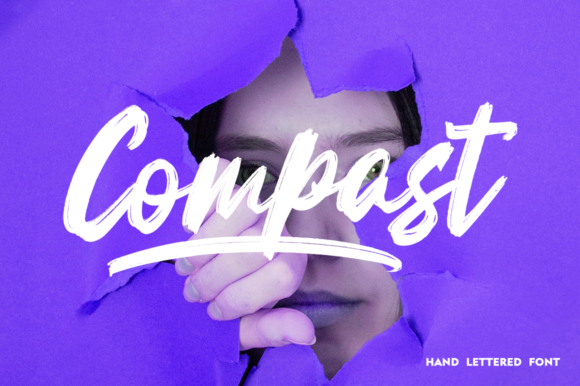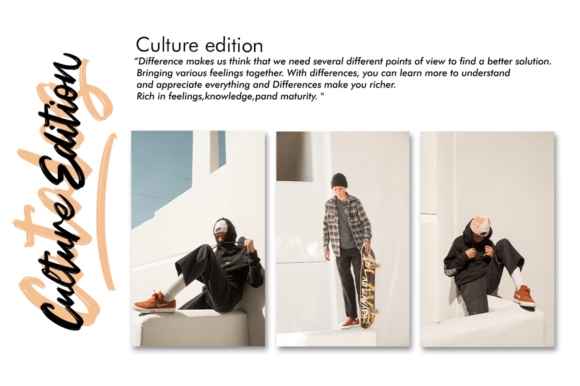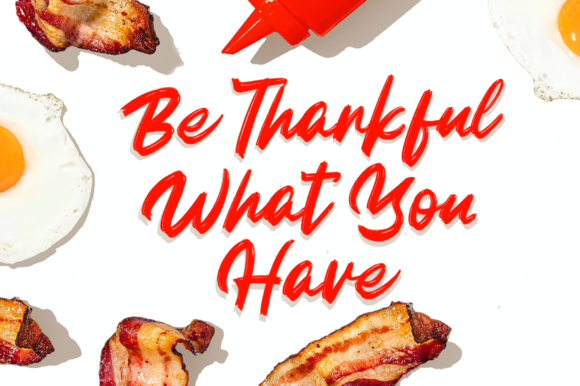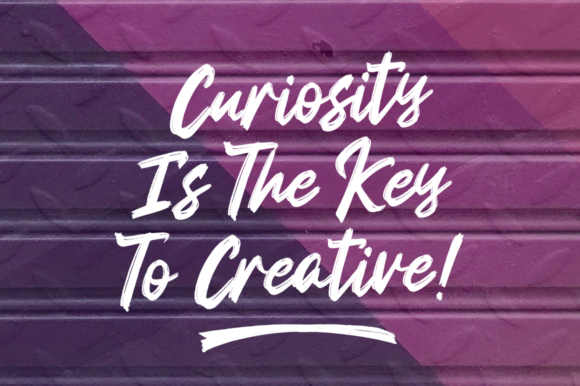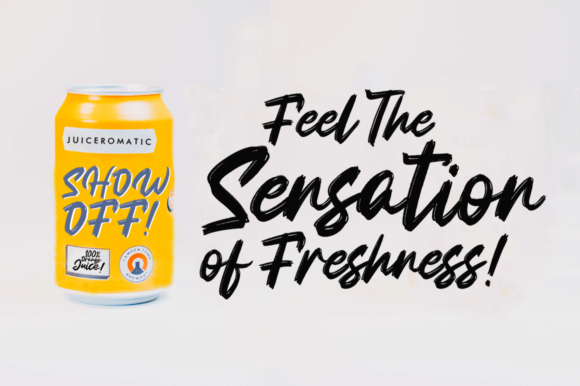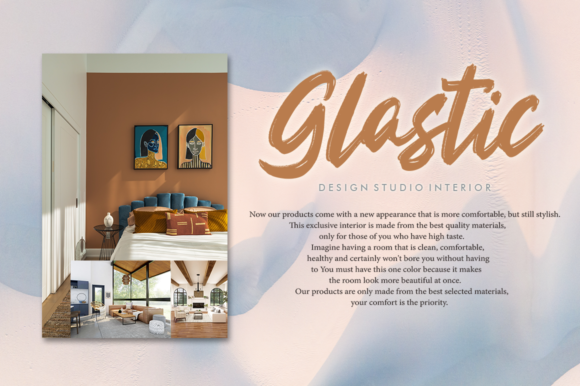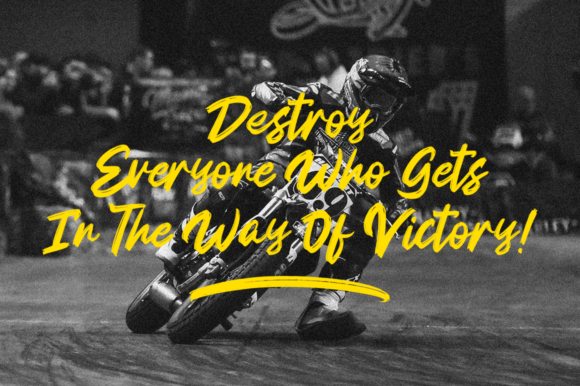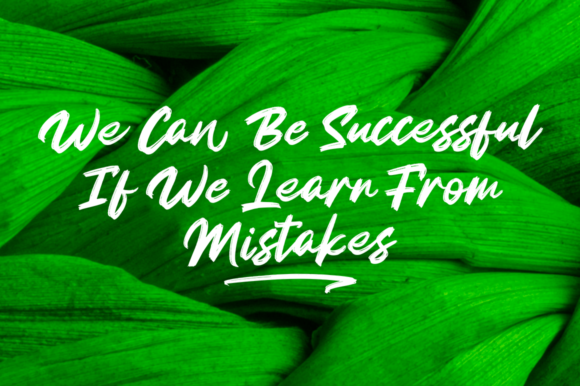
Compast Font
About Compast Font
Compast is a cursive and assertive handwritten font, crafted to give your headlines and logotype projects a stylish touch. This font reads as strong, confident, and dynamic and can add tons of nostalgic character to your designs.